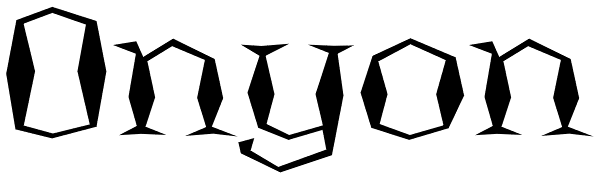
Onyon
Onyon is a strange typeface with stems that thicken in the middle and narrow at the ends. It that will make your eyes water if you use it at small point sizes for text.
Onyon Font